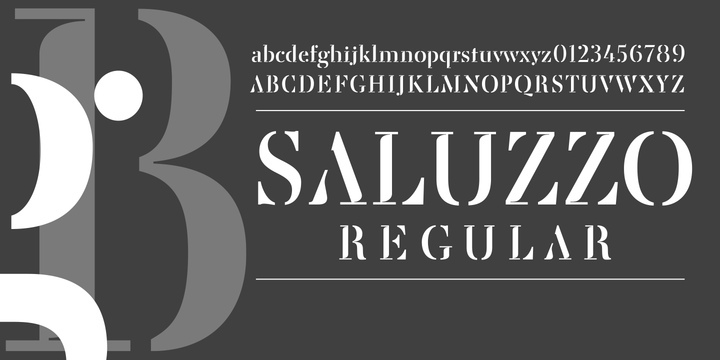
Saluzzo Font
Saluzzo Font is perfect for Italian restaurant branding, wine label design, gourmet food packaging, Mediterranean resort signage, culinary magazine headers, artisan market displays, traditional trattoria menus, and heritage food product marketing.
What makes Saluzzo Font exciting is its authentic Italian charm that captures the warmth and tradition of Mediterranean culture. The font features elegant letterforms with classical proportions and rustic sophistication that evoke rolling Tuscan hills, ancient stone architecture, and timeless culinary artistry. Its distinctive character variations and old-world styling communicate heritage, authenticity, and artisanal craftsmanship, making every message feel infused with the passion and tradition of Italian lifestyle and gastronomy.
The Saluzzo Font family includes regular weight with uppercase and lowercase letters, numerals, punctuation marks, and special characters. Premium versions often feature stylistic alternates and decorative elements that enhance the Mediterranean, heritage aesthetic perfect for culinary and hospitality applications.
The cultural character of Saluzzo Font makes it particularly effective for authentic Italian restaurants, gourmet food importers, and wine merchants. Its excellent readability ensures menu descriptions and product information remain clear while maintaining the distinctive Italian aesthetic that customers associate with quality ingredients and traditional cooking methods.
Culinary marketers and hospitality designers appreciate how Saluzzo Font effortlessly conveys authenticity and cultural heritage. The font's classical proportions and rustic details create appetizing brand materials that establish connections with audiences seeking genuine Italian experiences and artisanal food traditions.
The versatile heritage of this typeface extends to cooking schools, cultural tourism, and artisan craft marketing where Italian authenticity enhances brand credibility. Saluzzo Font Free Download provides creative professionals with a valuable tool for developing memorable, culturally-rich designs that resonate with audiences who embrace Italian culture, culinary excellence, and the timeless appeal of Mediterranean lifestyle in their dining and travel experiences.